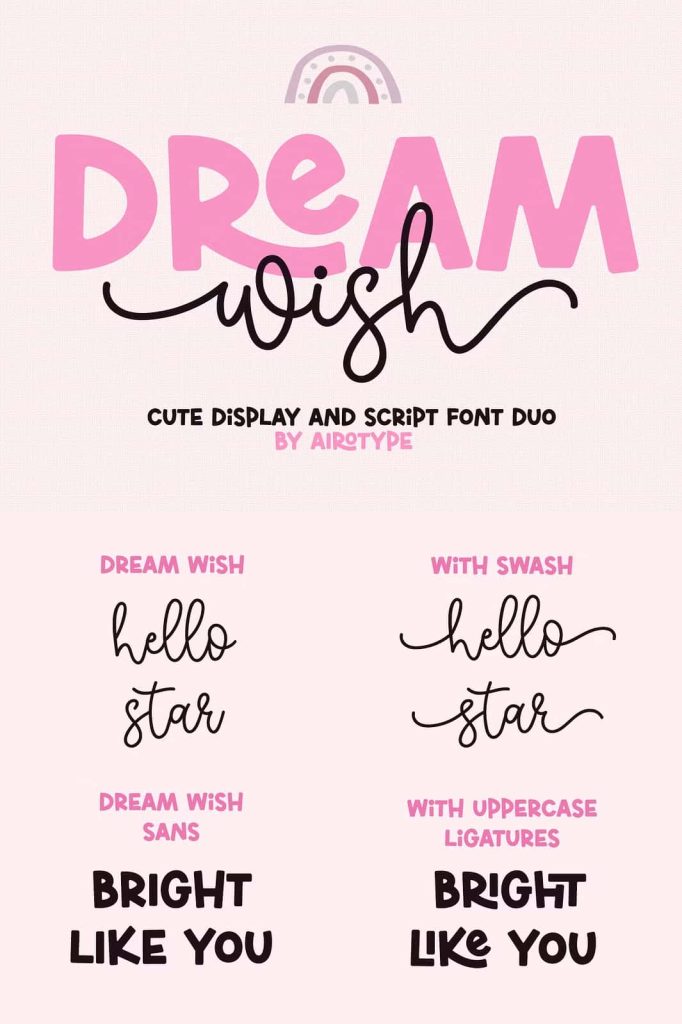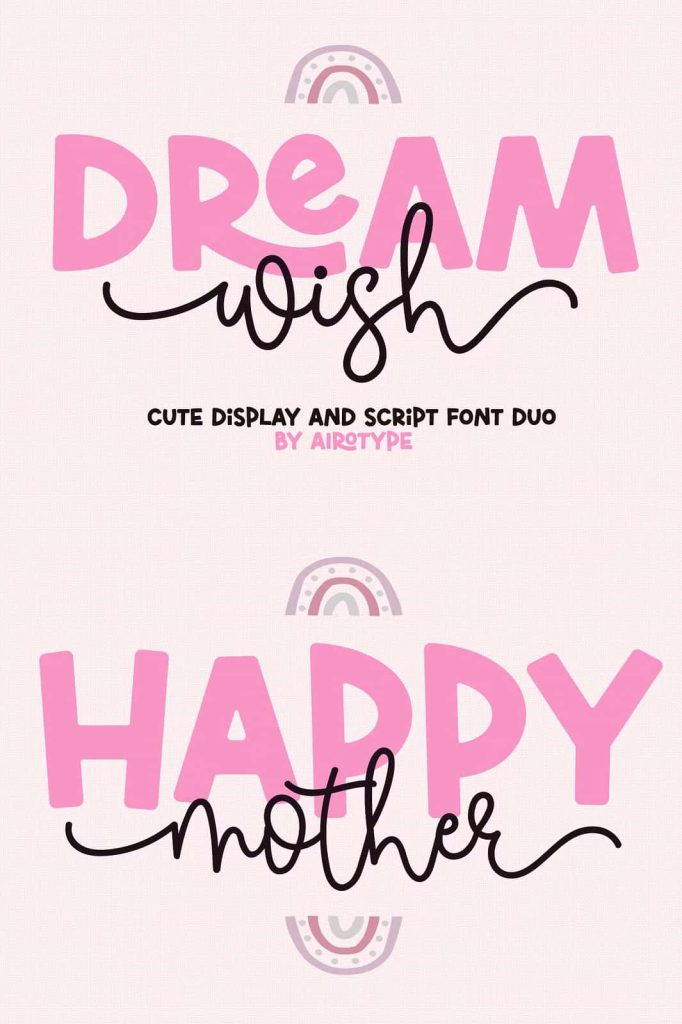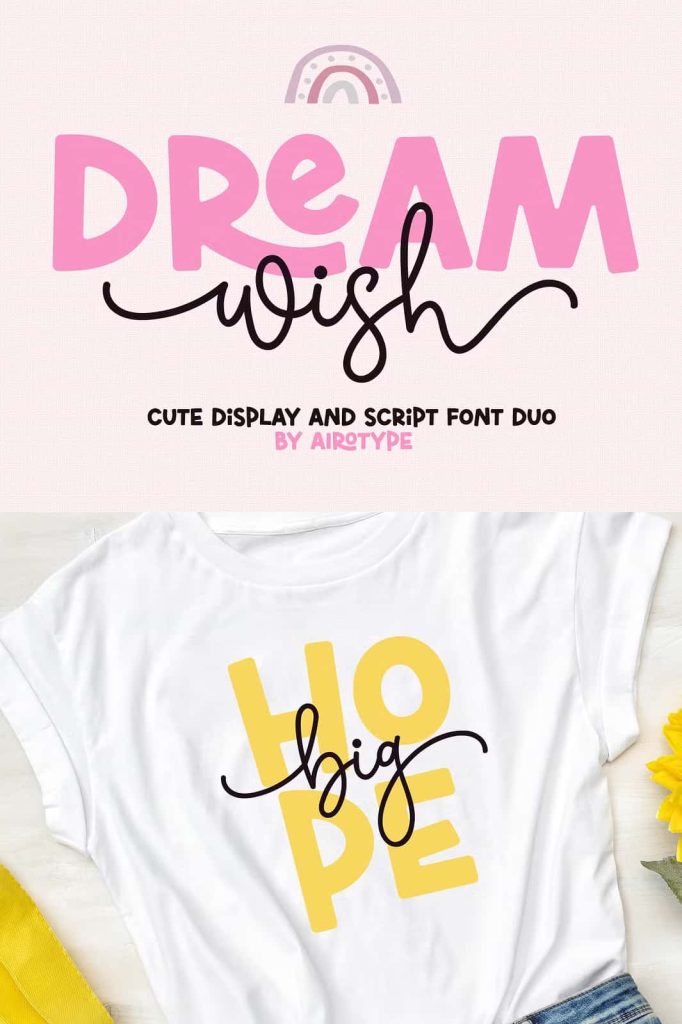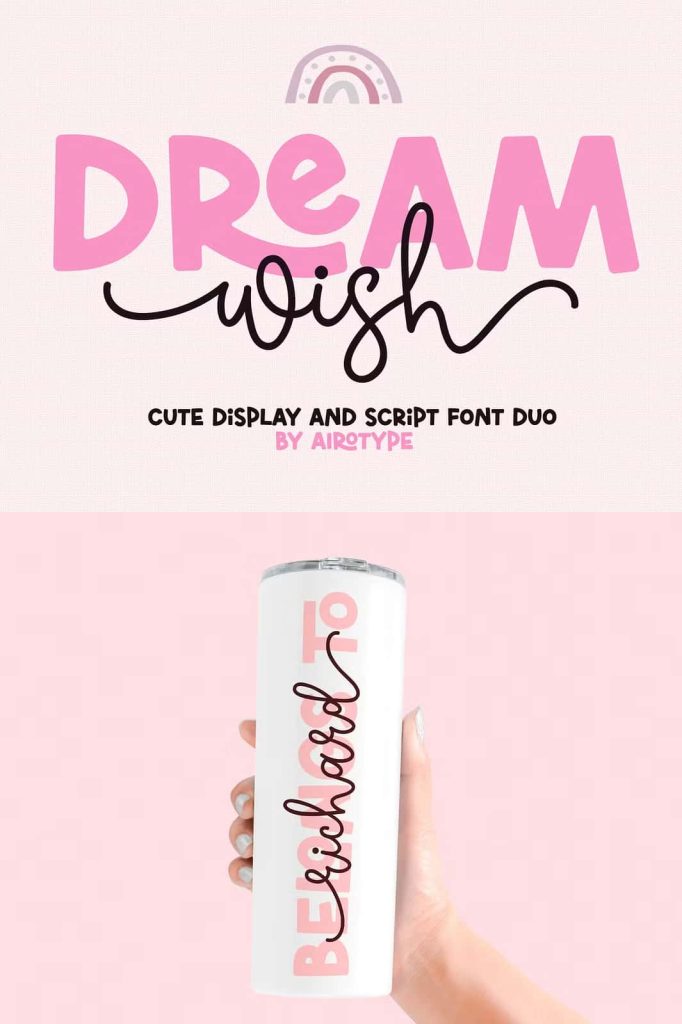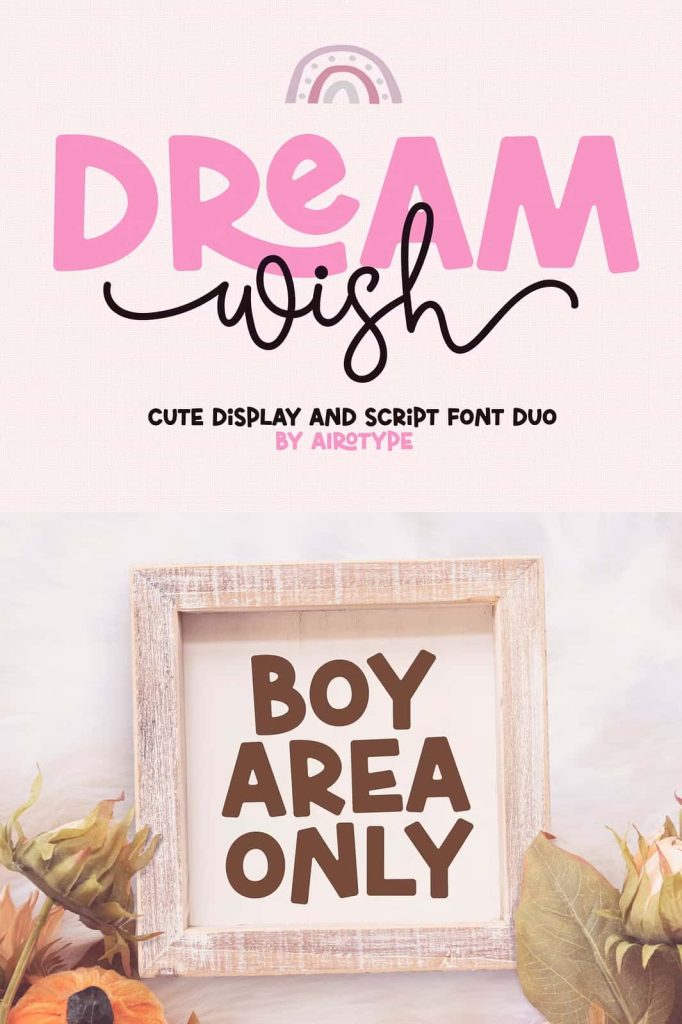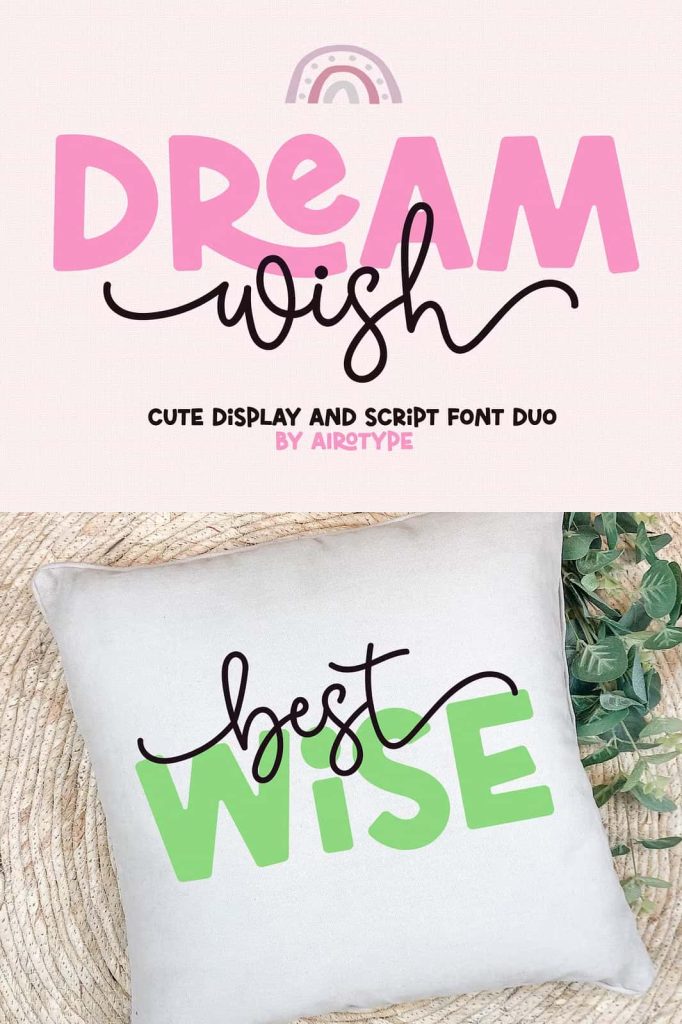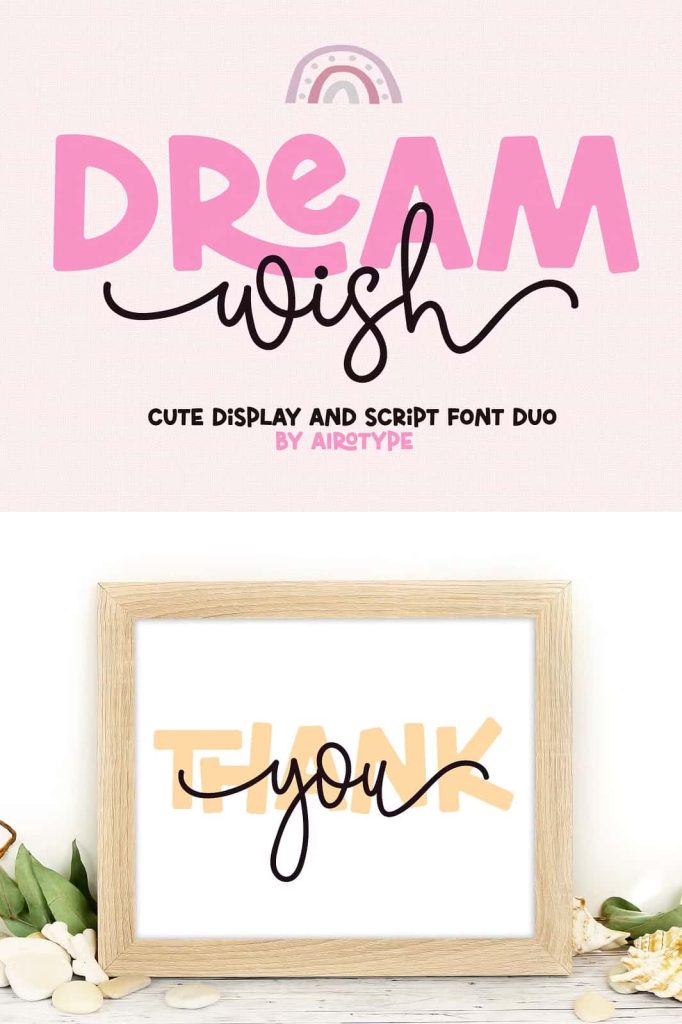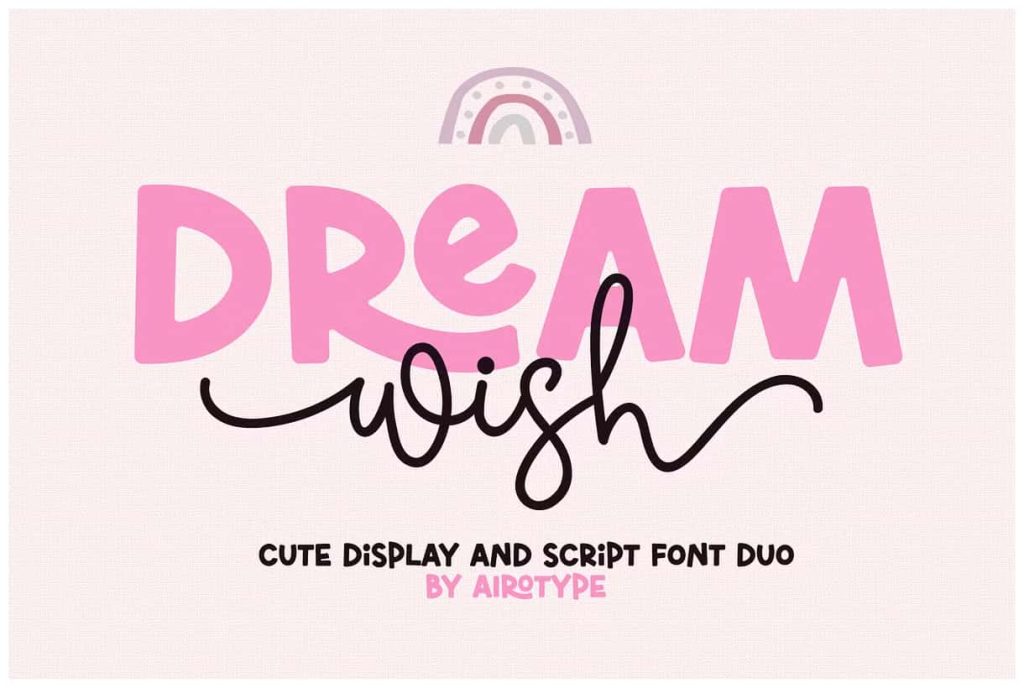
Dream Wish – Cute Handwritten Duo
Dream Wish is cute and bouncy font duo. This font is pretty, modern, and fun. It can be used together or separately.